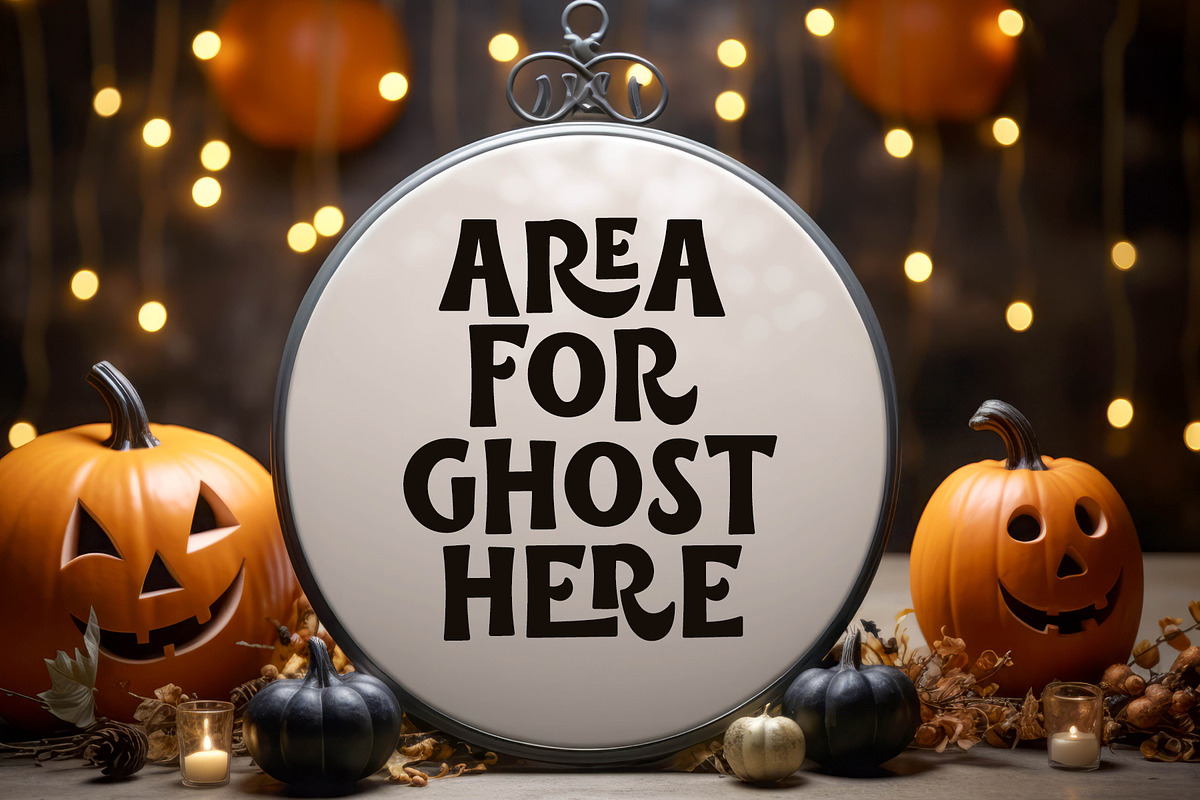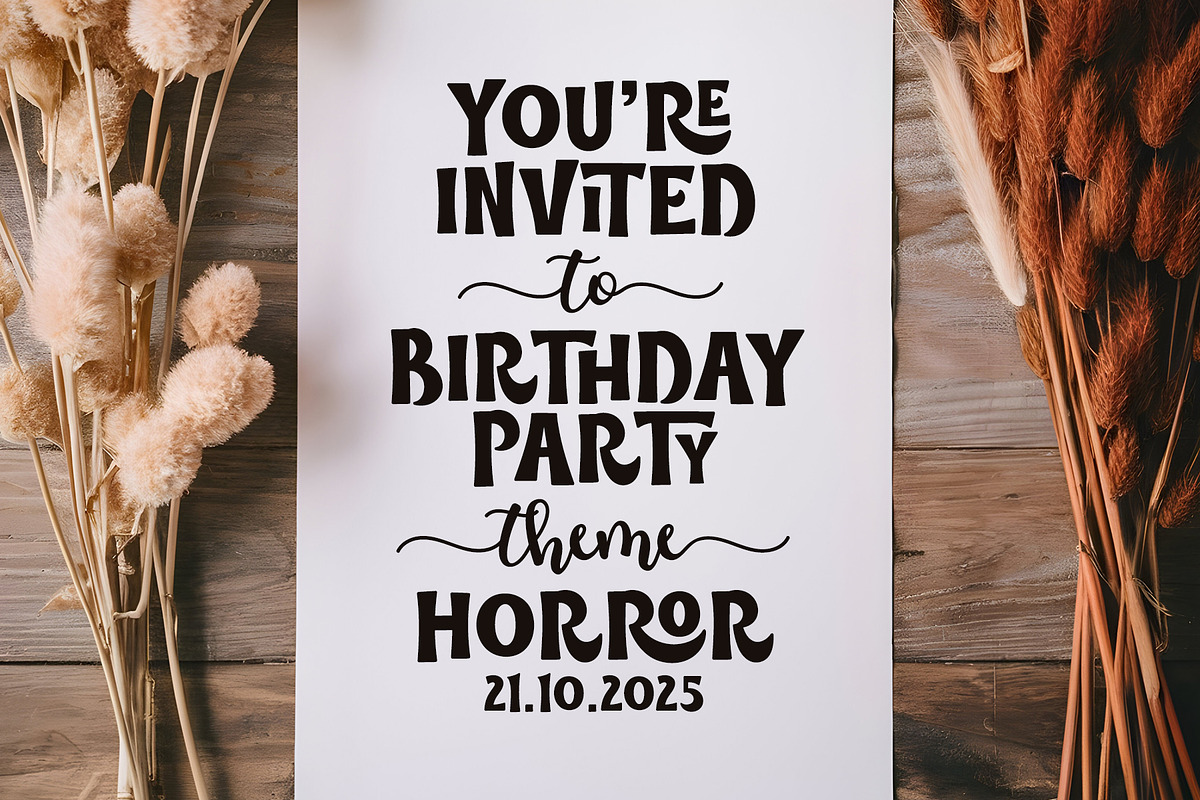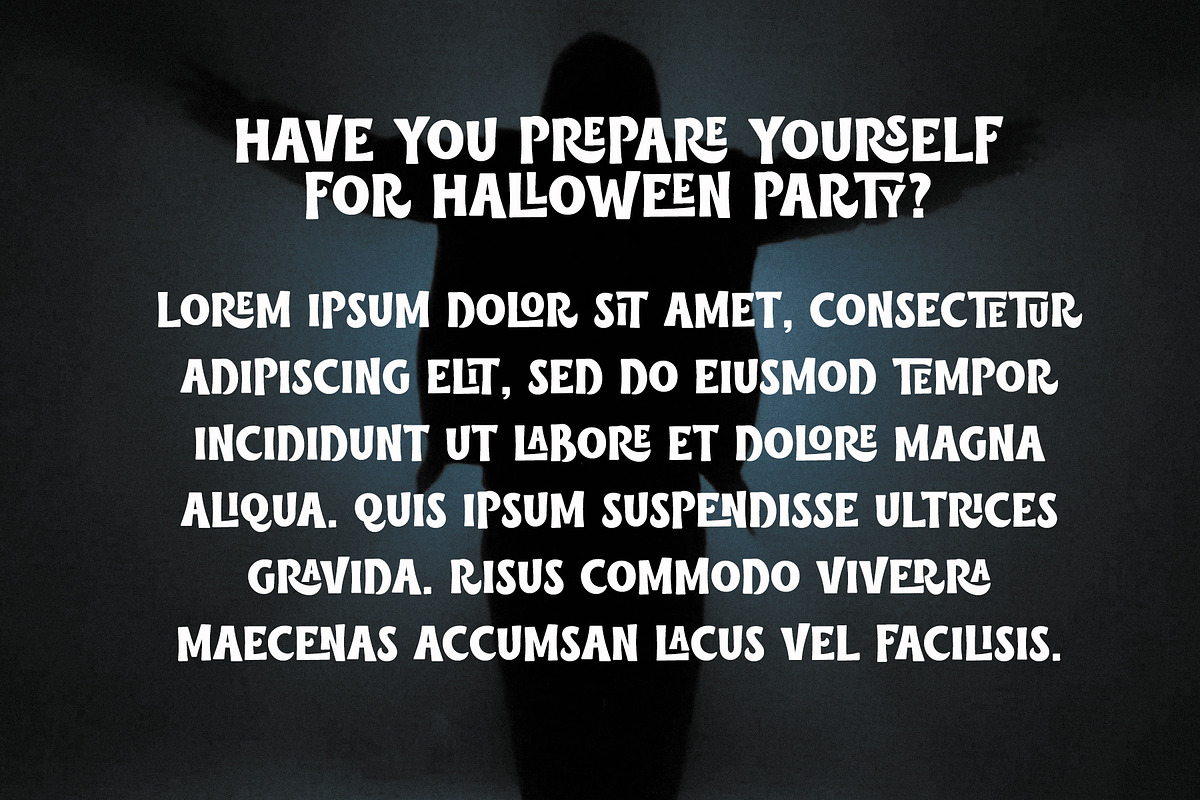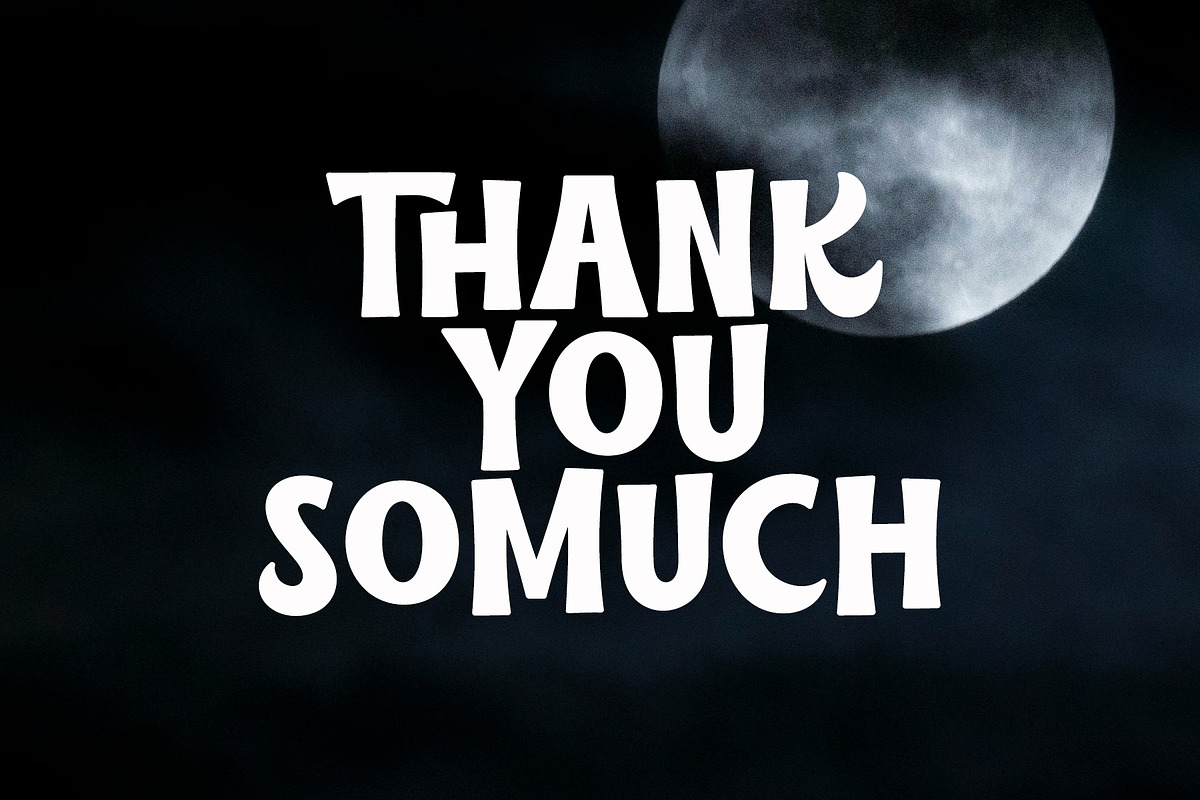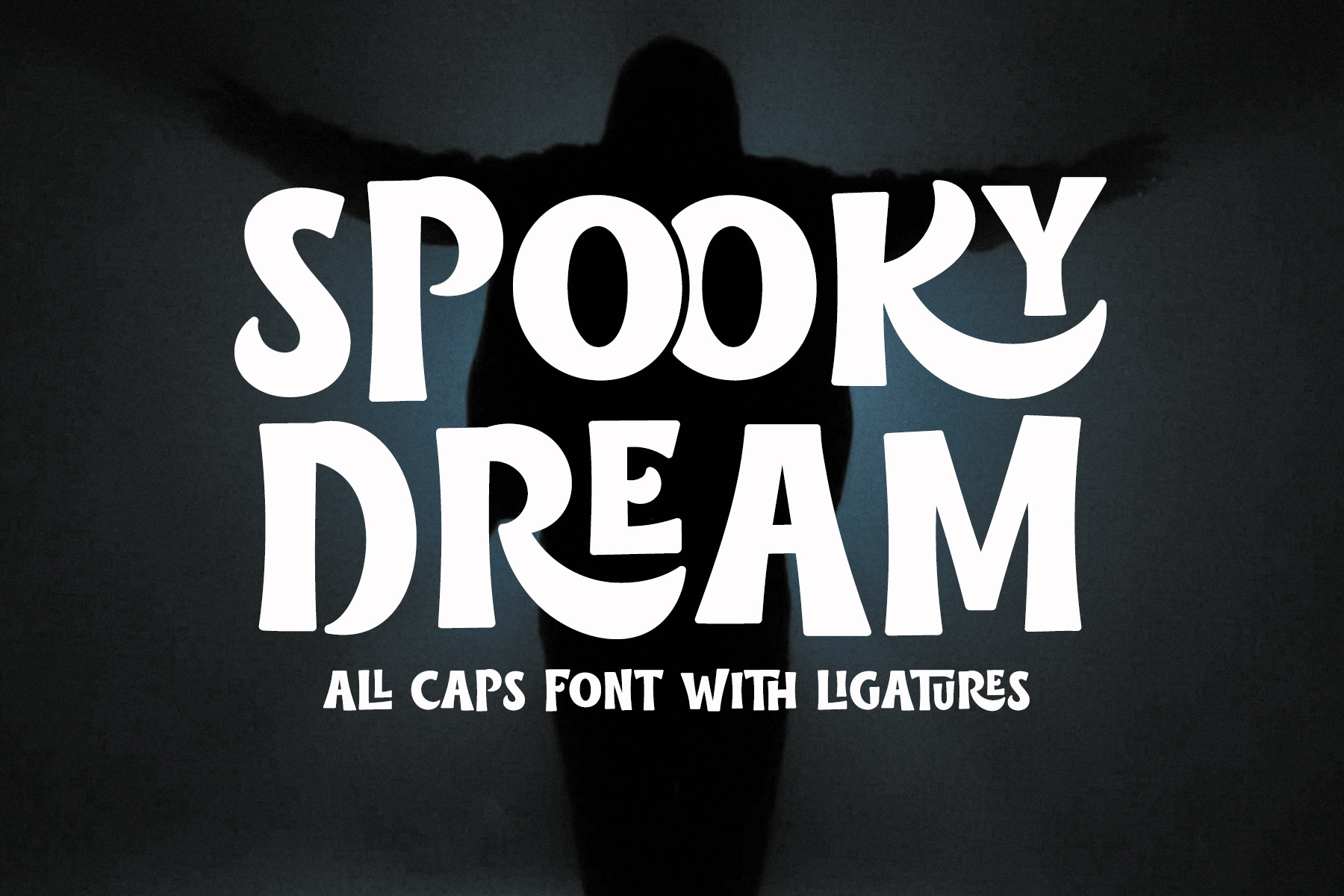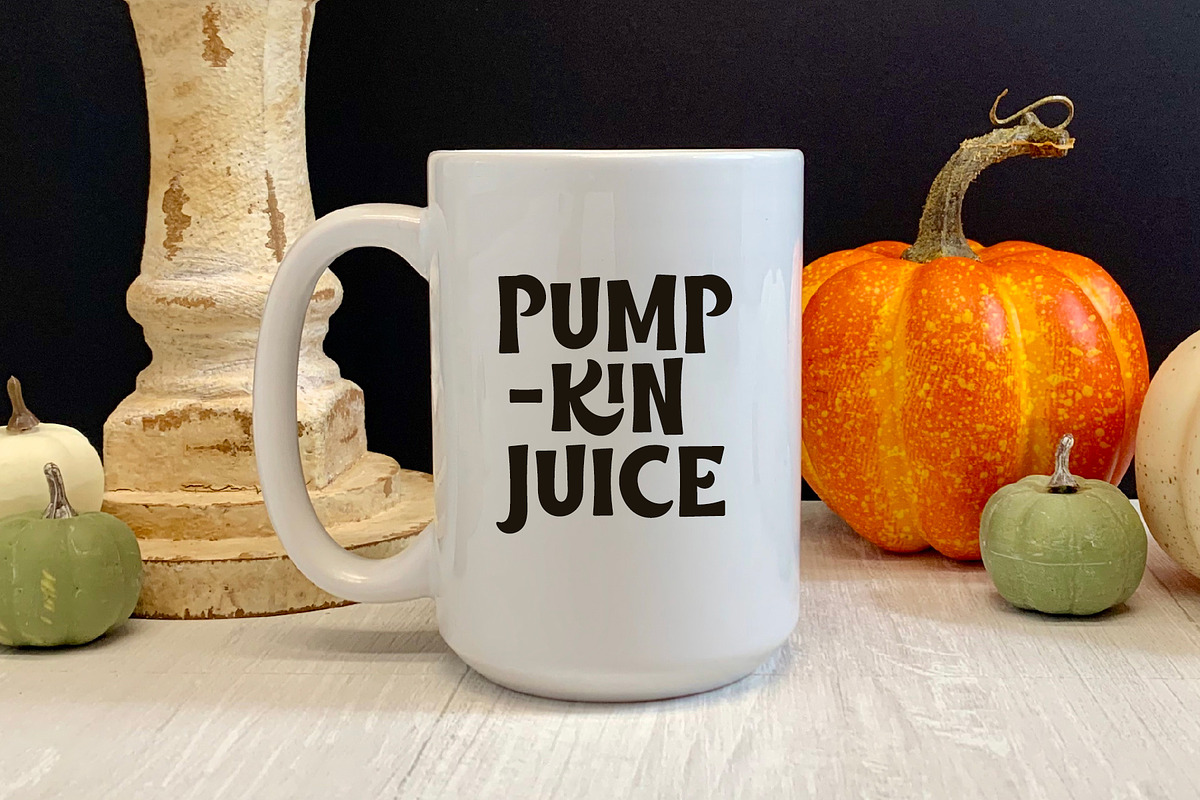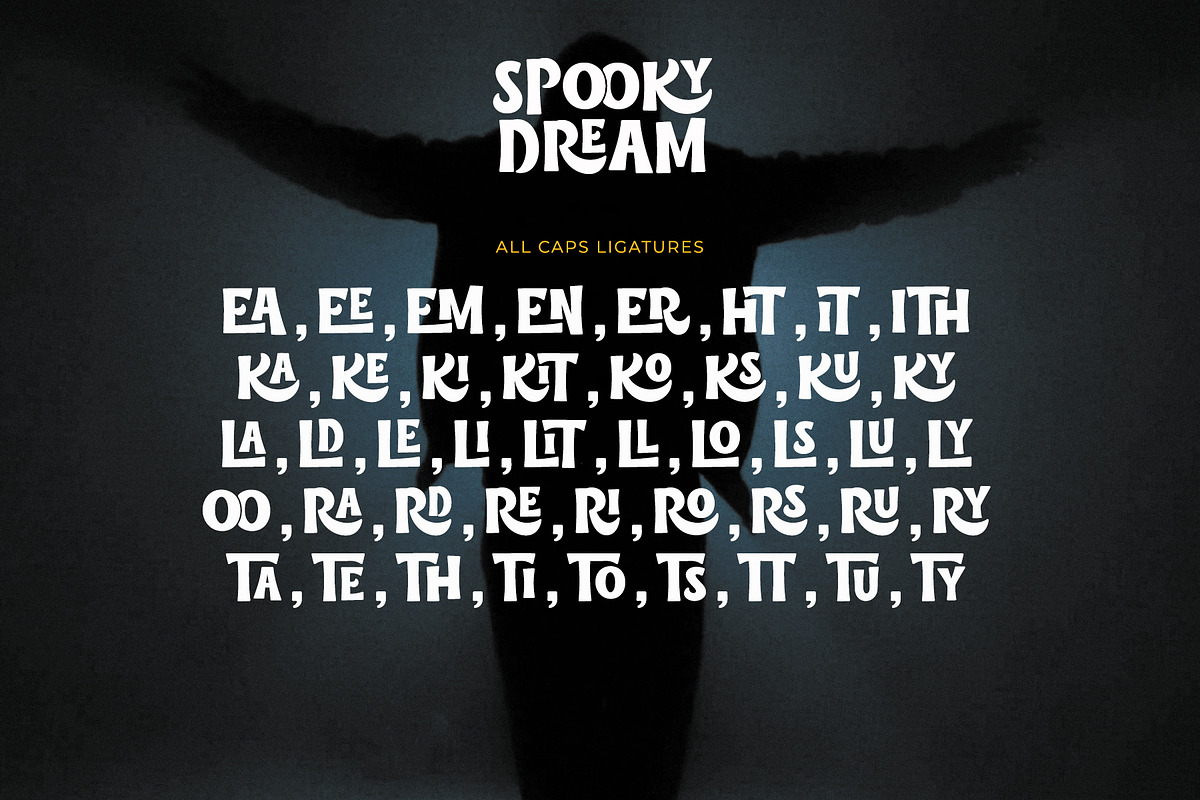
Spooky Dream - All Caps Spooky Font
Spooky Dream is all caps serif font. It is bouncy and bold, with spooky and cute vibes in the same time. This font has some ligatures to give more options in designing.
Spooky Dream is suitable font for design that needs spooky and bouncy vibes, such as Halloween, t-shirt, crafting, stickers, and many more.
- All Caps (with some ligatures)
- Most Multilingual Accent